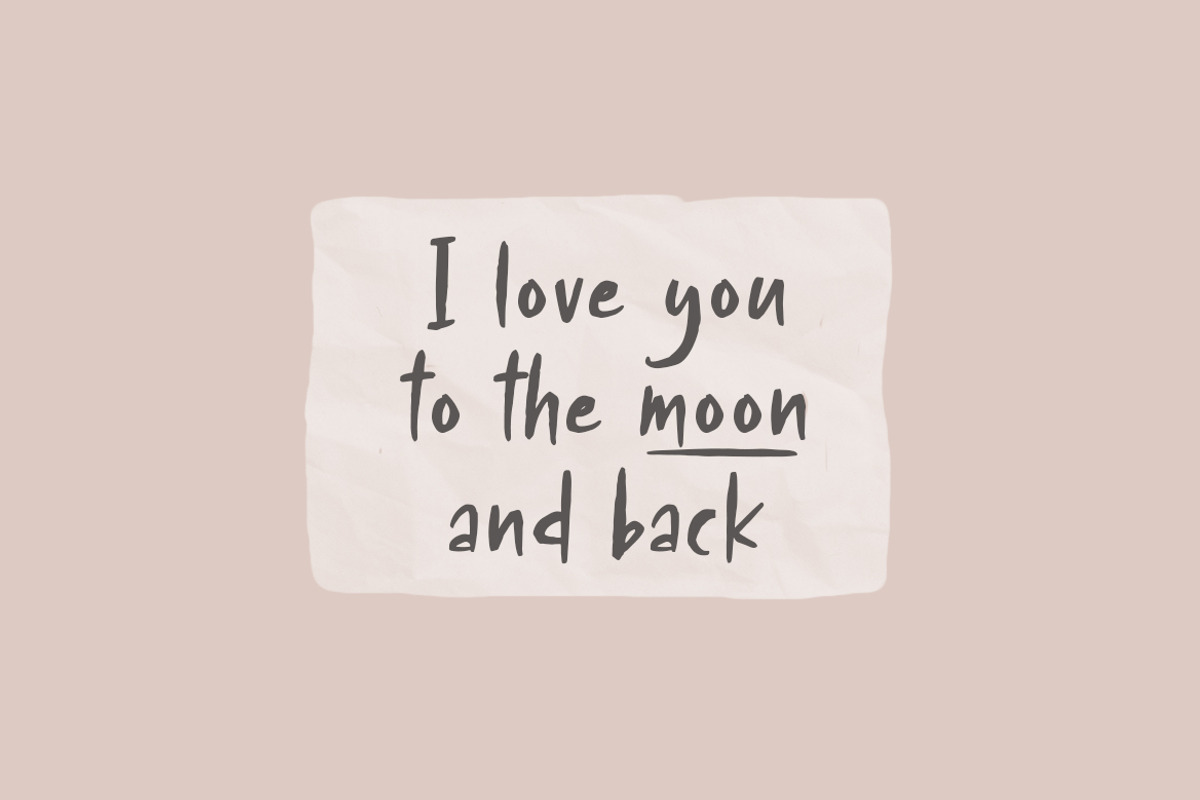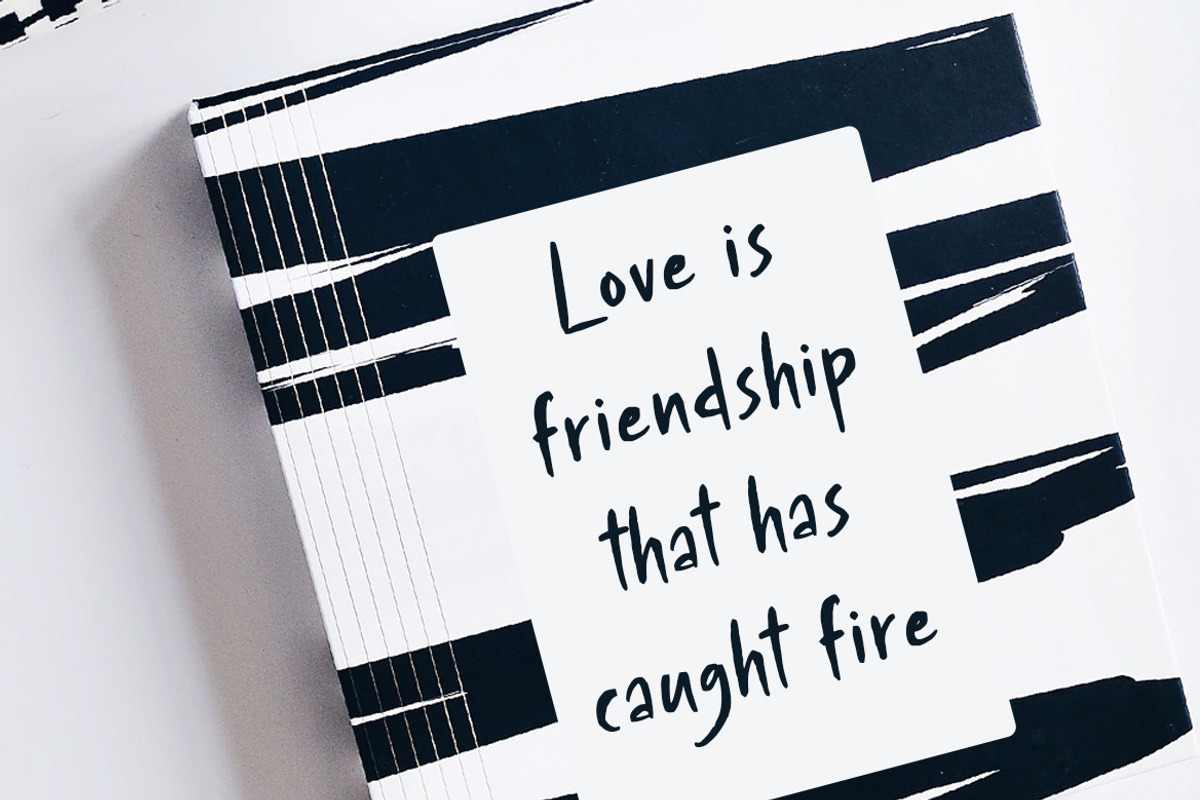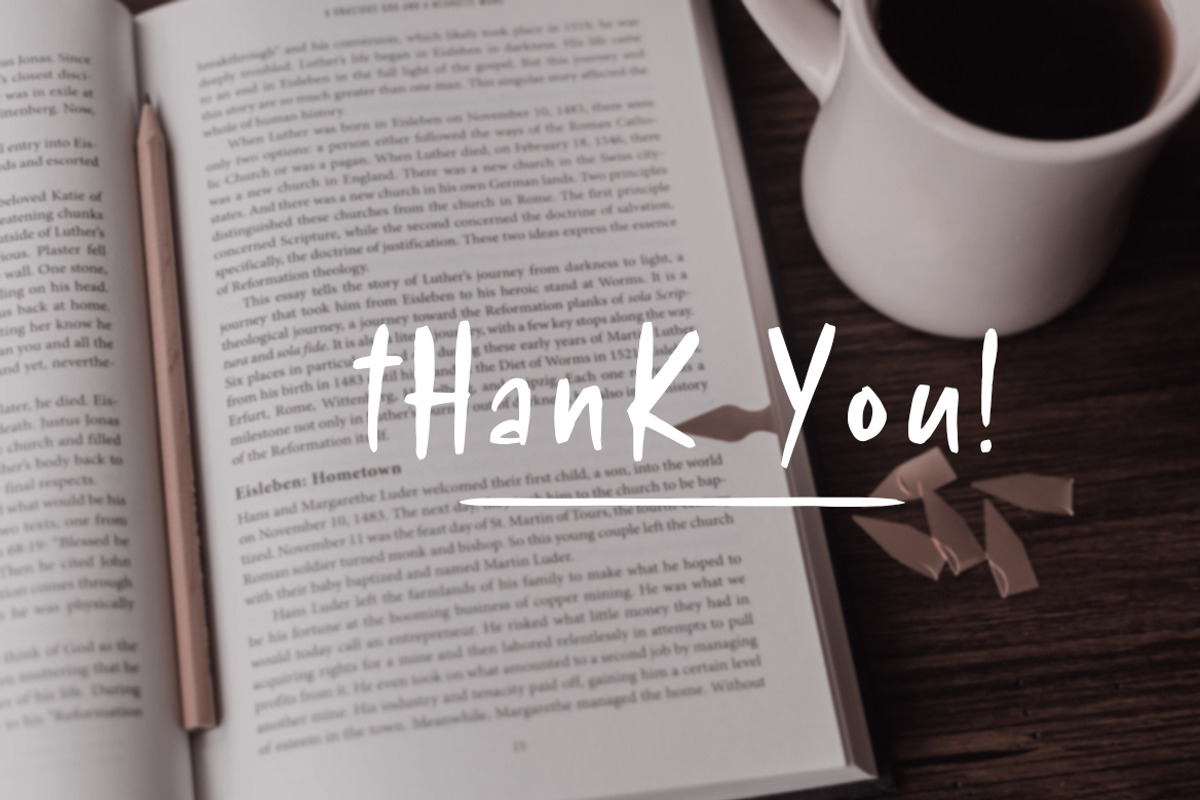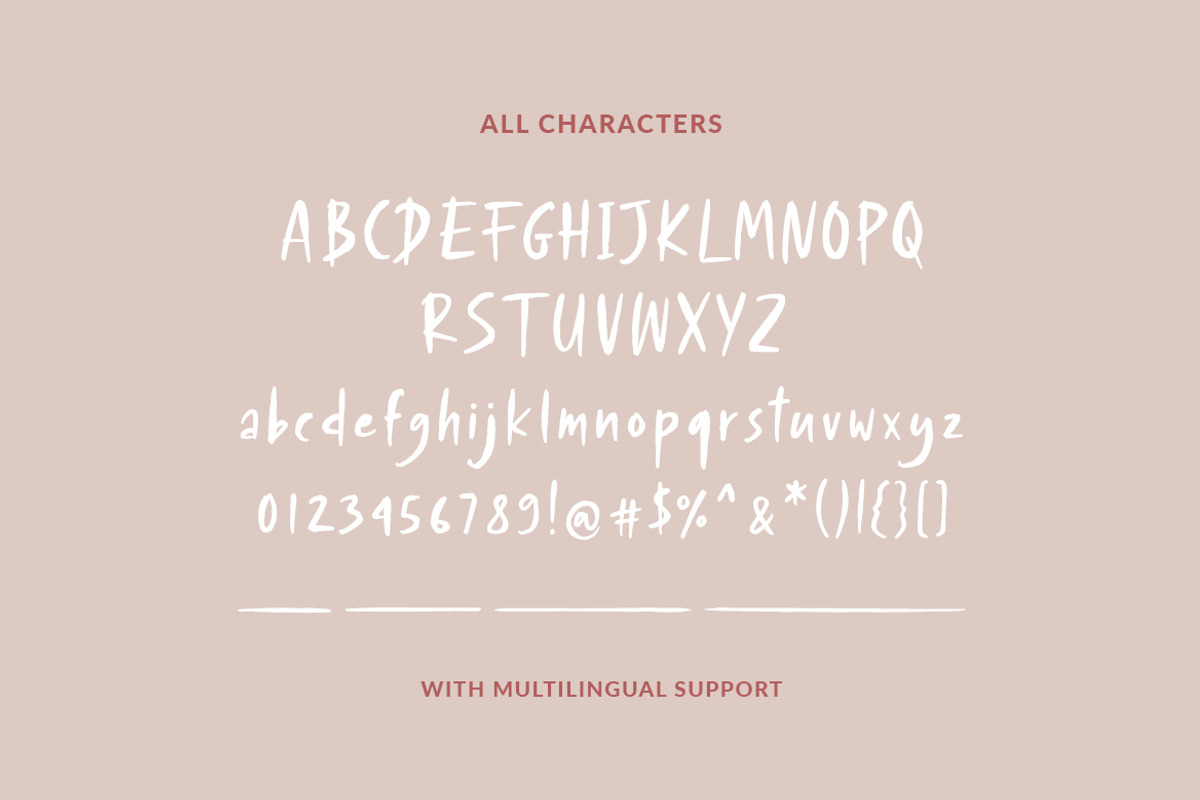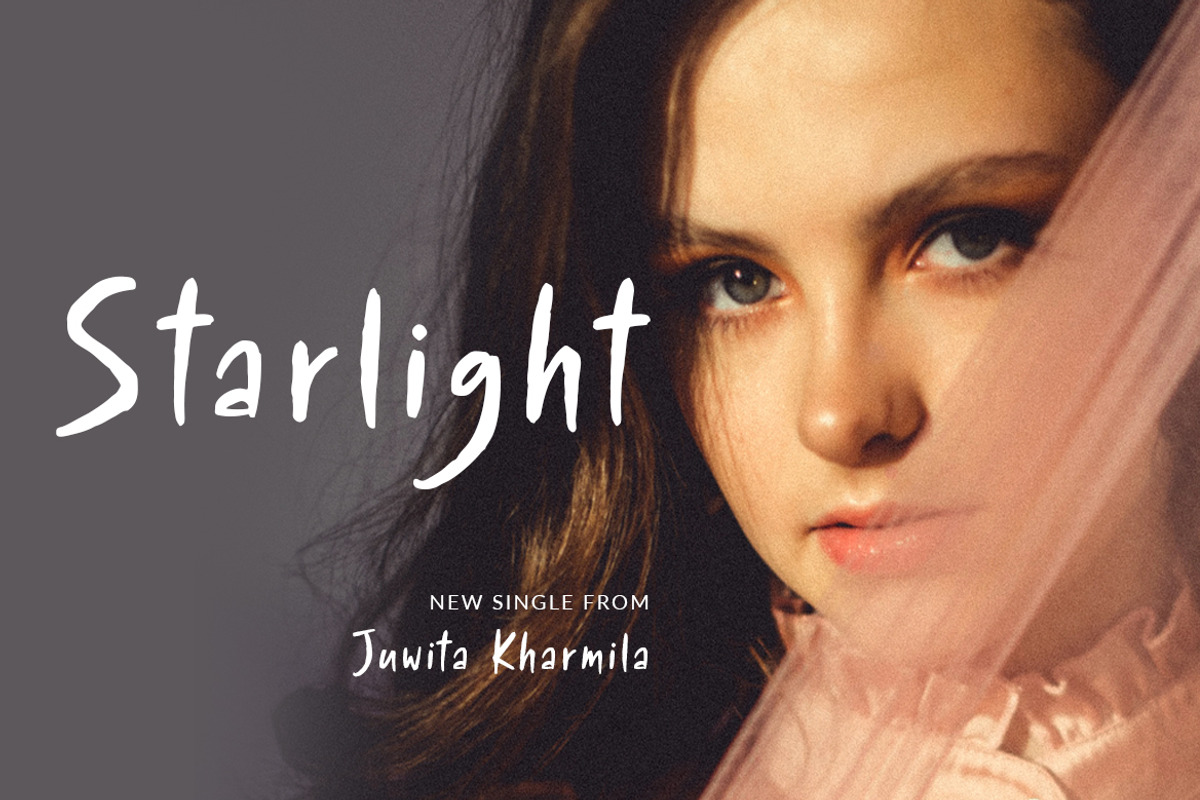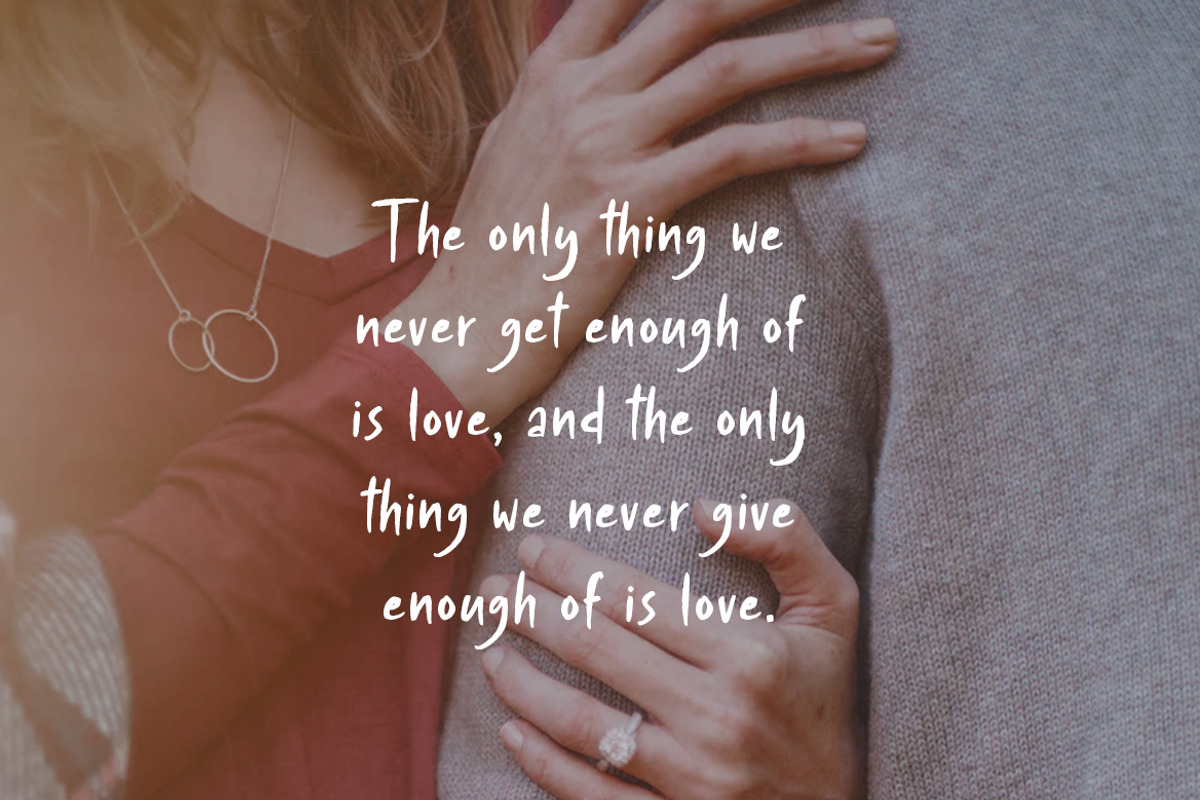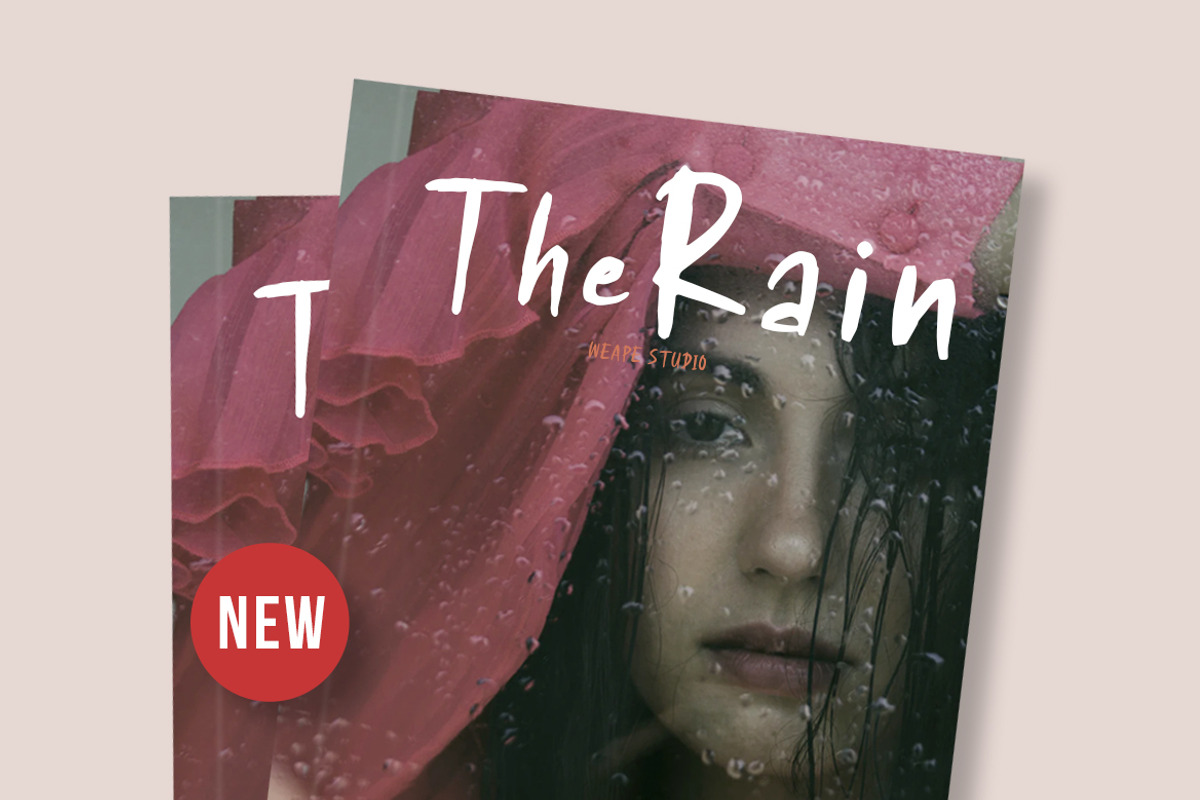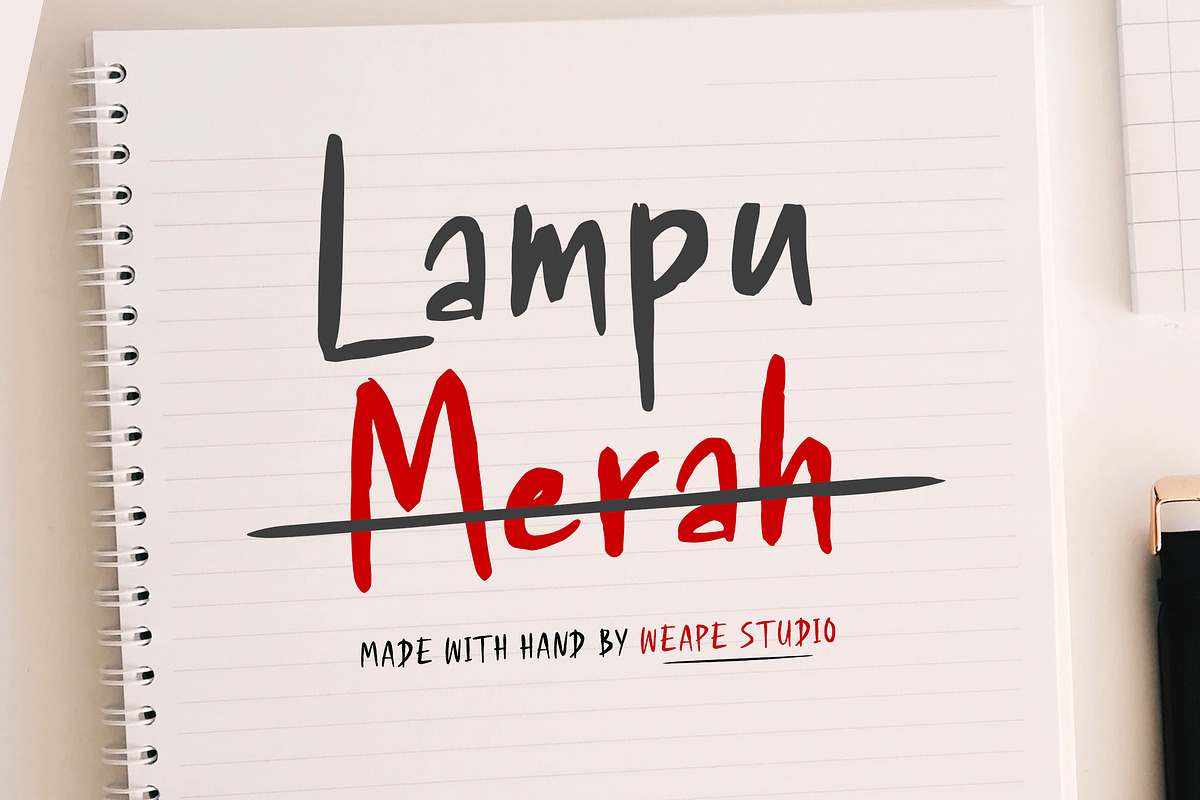
Lampu Merah
Introducing Lampu Merah, a new font with natural brush handwriting style. Lampu Merah is very suitable for title, logo design, book cover, magazine, flyers, quotes, packaging and of course much more.
This font comes in uppercase, lowercase, punctuations, symbols & numerals and multilingual support.